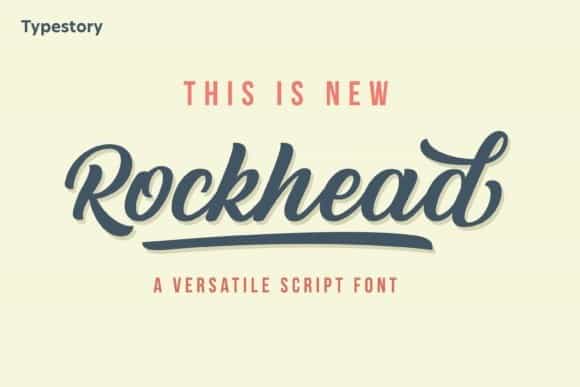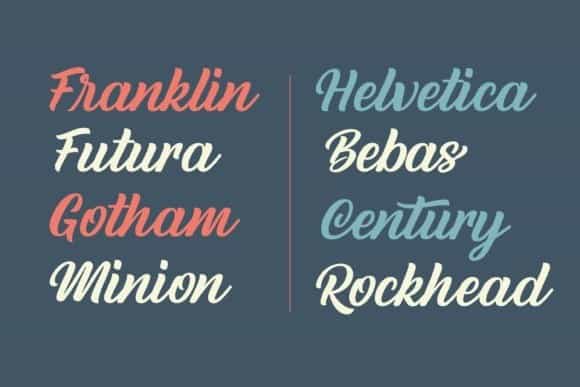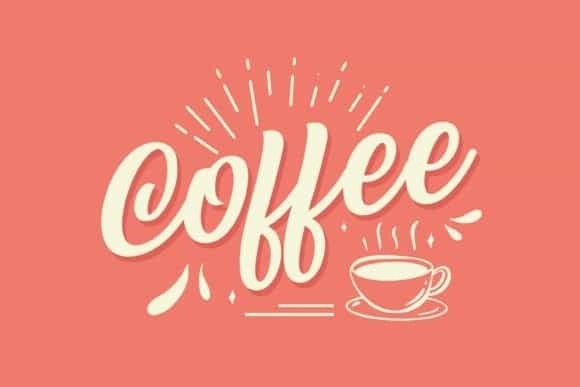
Discover Rockhead Script Font, part of the Brush Calligraphy Script collection—a versatile and unique font perfect for adding a personal touch to your projects. Download it for free and enjoy crafting designs with style, from invitations to social media posts. This font is available exclusively for personal use, giving you the freedom to create without limits. Unlock your creativity with Rockhead Script Font today!
Meet Rockhead, a hand-written script typeface from Typestory. Make your projects look hand made with this lovely font that combines the lowercase script characters and a modern uppercase to give you many options for confident and eye-catching layouts.